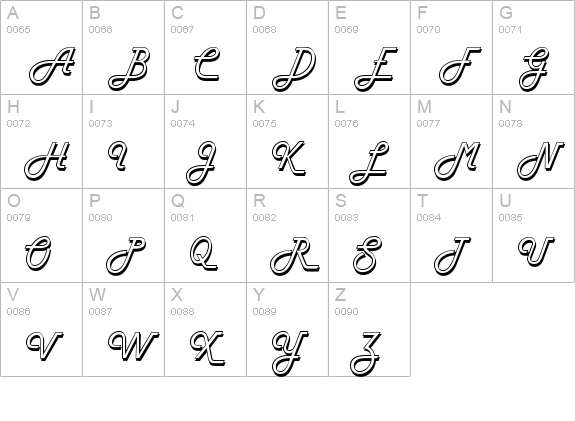
Bermuda font is a stunning and versatile typeface that exudes elegance and sophistication. With its sleek lines and modern aesthetic, Bermuda font is perfect for a wide range of design projects, from branding to editorial design. Whether you're creating a logo, poster, or website, this font is sure to make a statement. The best part? Bermuda font is completely free to download at FontsMarket.com. So you can add this beautiful typeface to your collection without breaking the bank. Don't miss out on the opportunity to elevate your designs with Bermuda font – download it today and let your creativity soar!